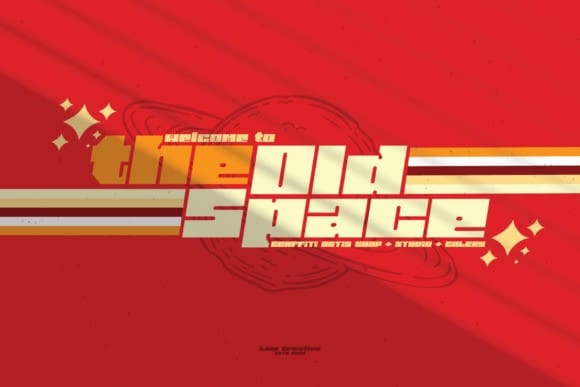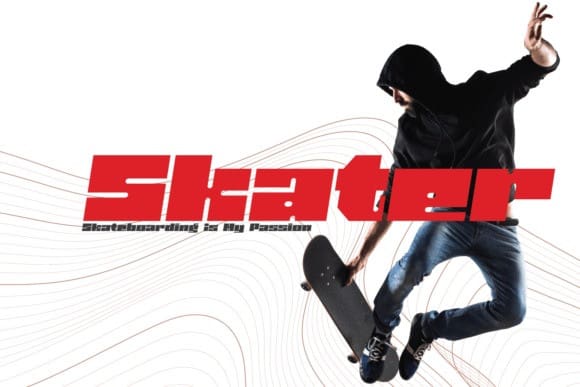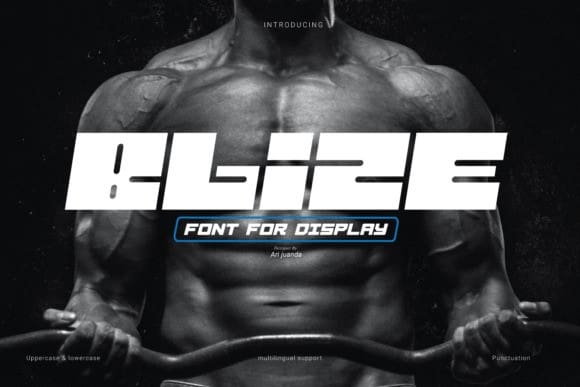
Blize Display Font
Blize Display Font,  is a display font designed with a futuristic and sharp touch, this font will give a sharp, strong and modern impression.